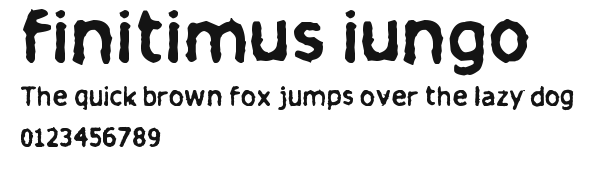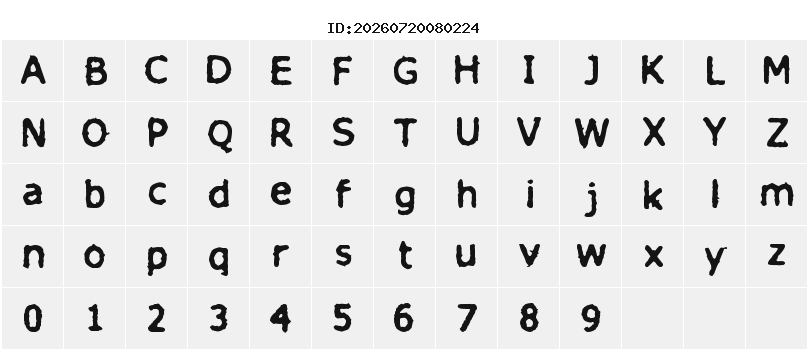
• Font Name: finitimus iungo
• Full Font Name: finitimus iungo
• Version: Version 1.00 April 11, 2006, initial release
• Designer: junkohanhero
About finitimus iungo.ttf
finitimus iungo.ttf is a modern, elegant sans-serif font designed for ultimate readability and visual harmony. Perfect for branding, headlines, web design, and print materials.